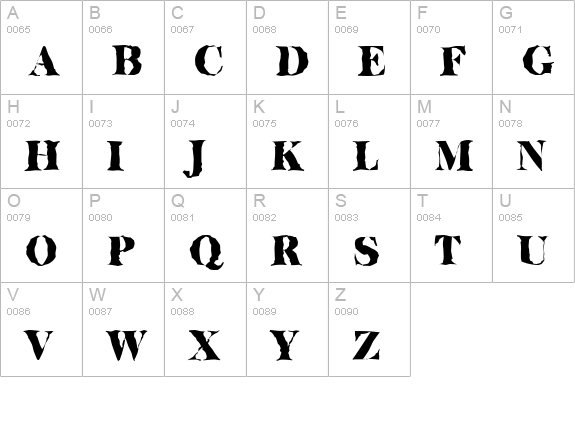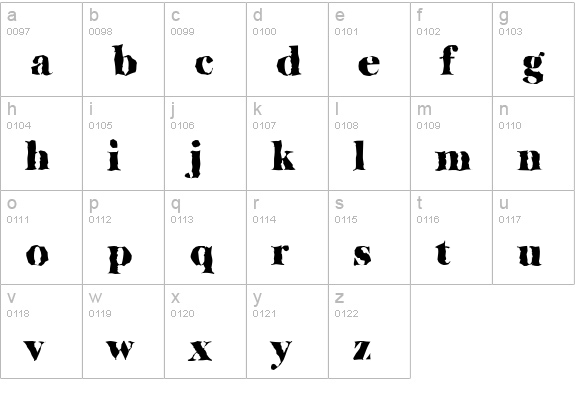
BaskervilleRandom-Black-Regular is a maximum-weight, dramatic variant in the BaskervilleRandom typeface family \xE2\x80\x94 well suited to maximum-impact headlines, posters, and packaging.